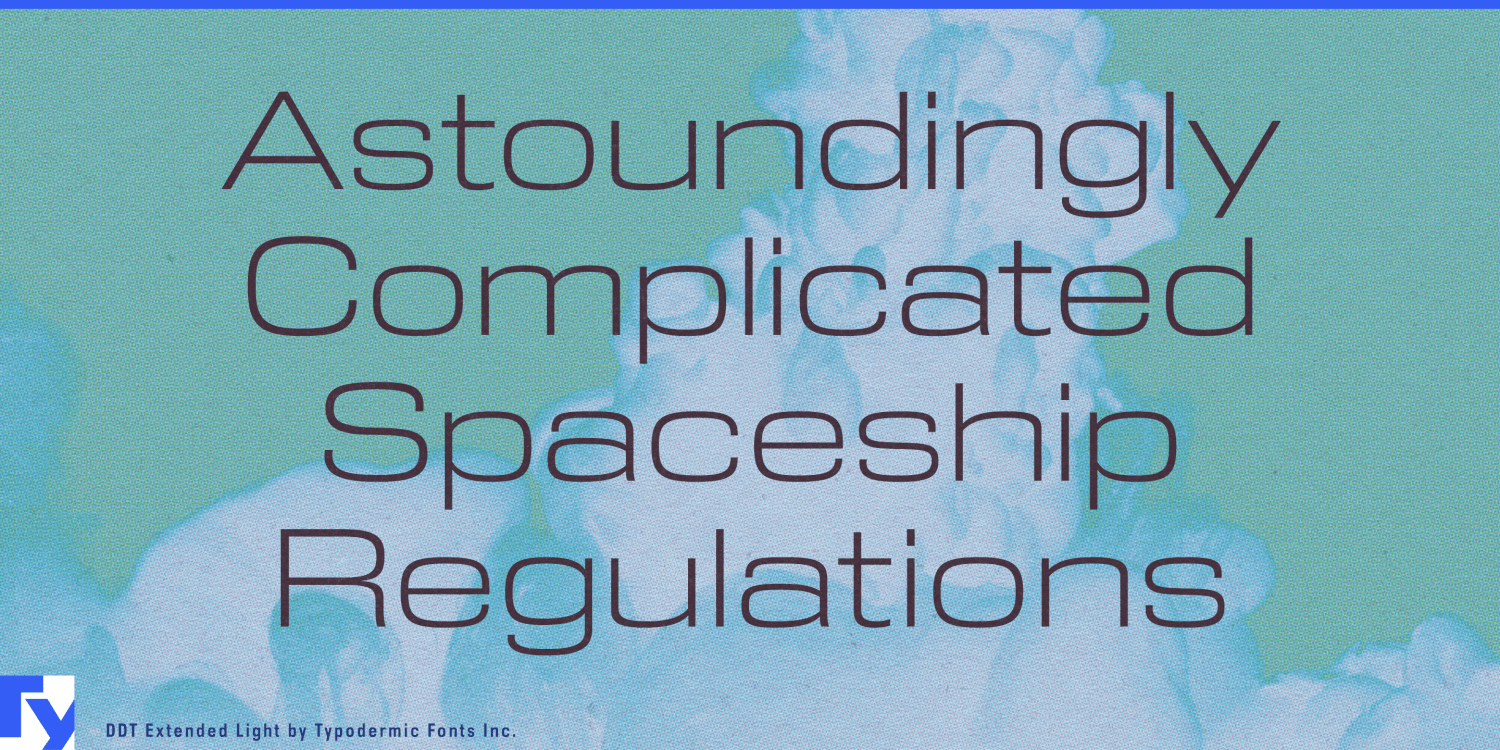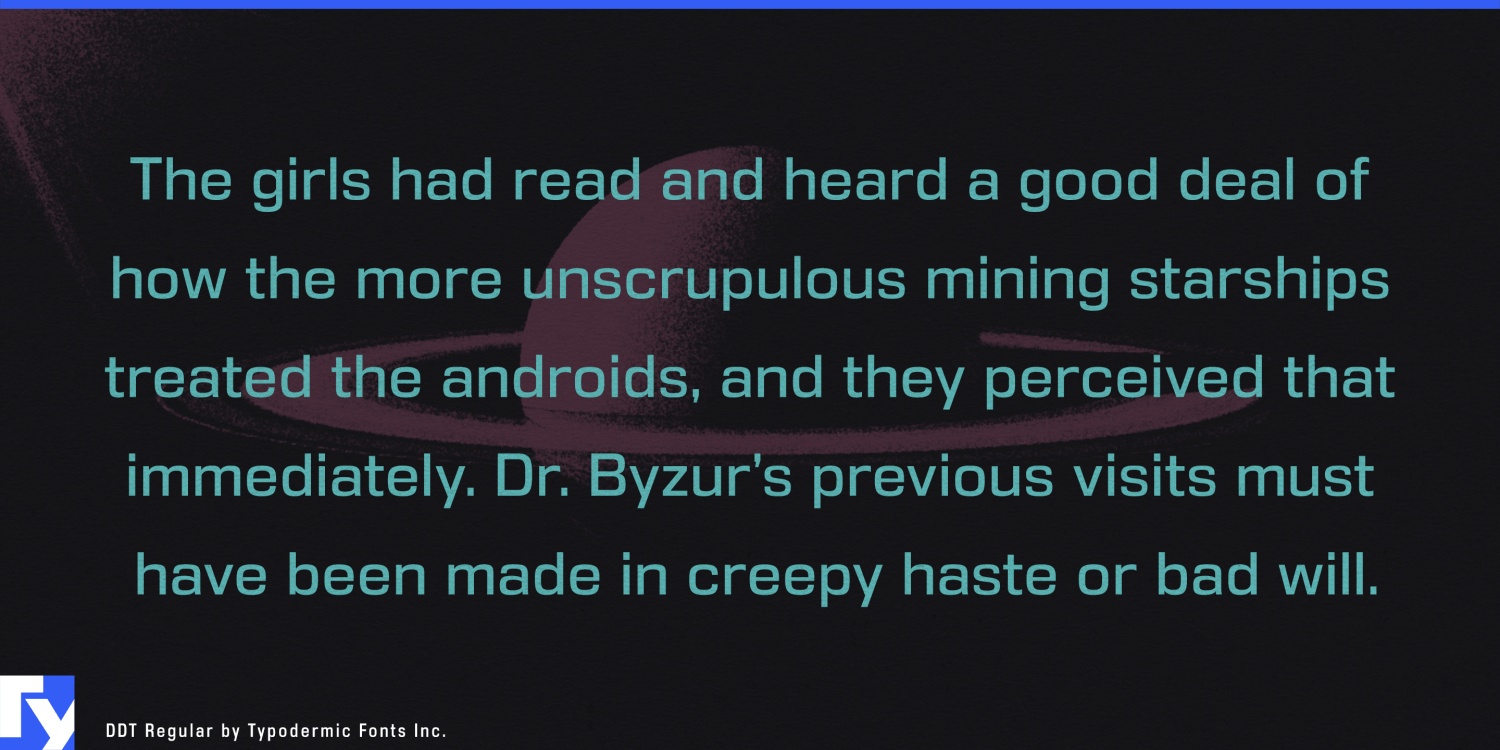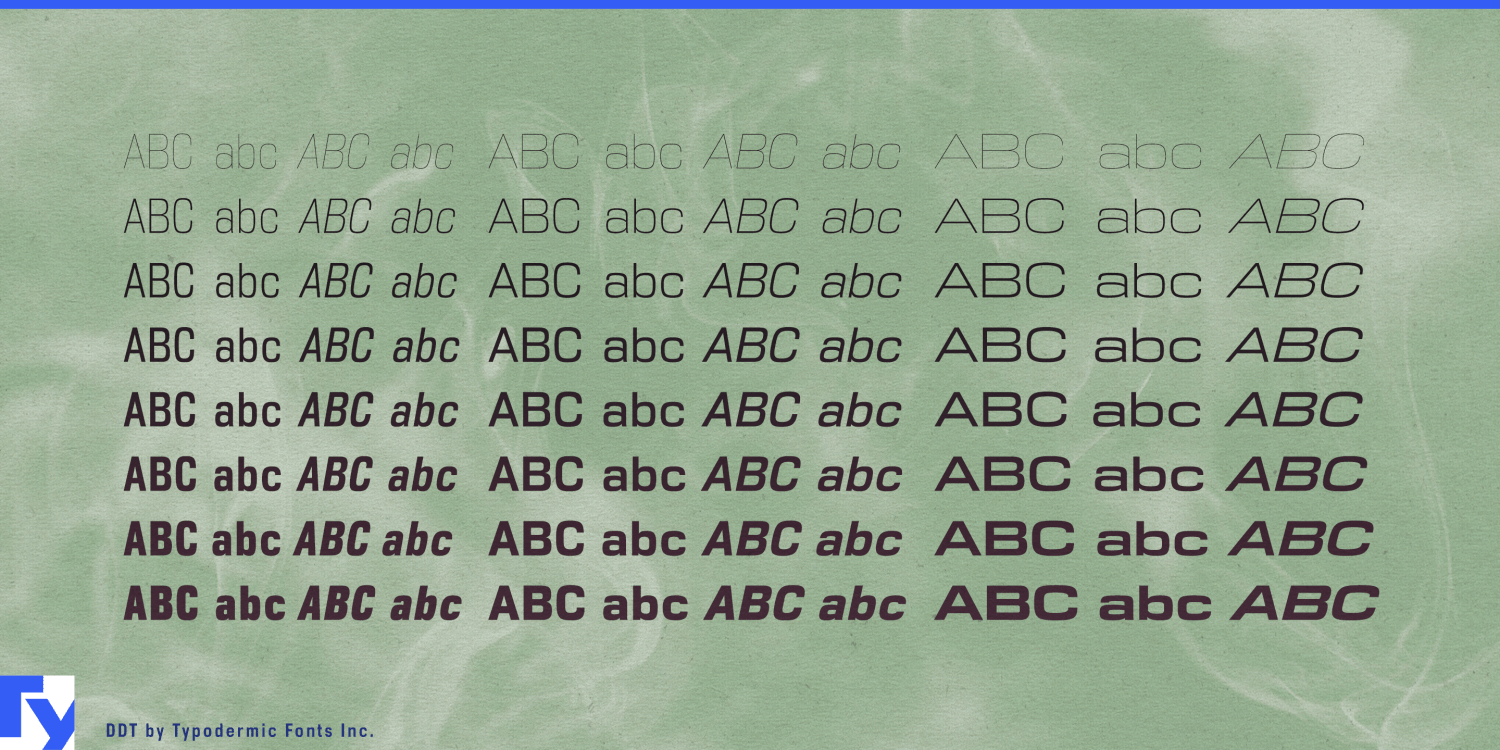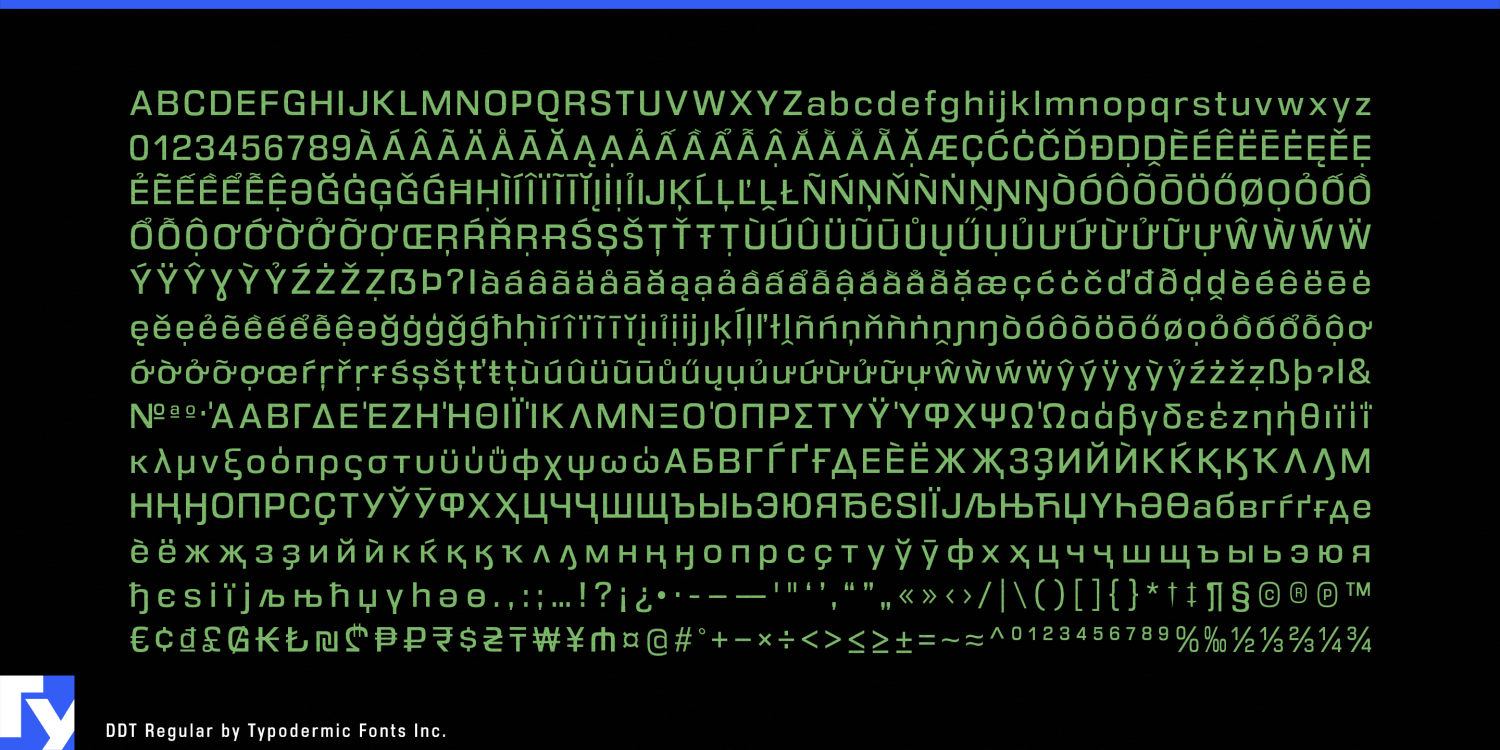
Introducing DDT, a powerhouse typeface that combines the best of classic design principles with cutting-edge functionality. Drawing inspiration from titans like Univers and Eurostile, DDT’s superelliptical shape strikes a perfect balance between…